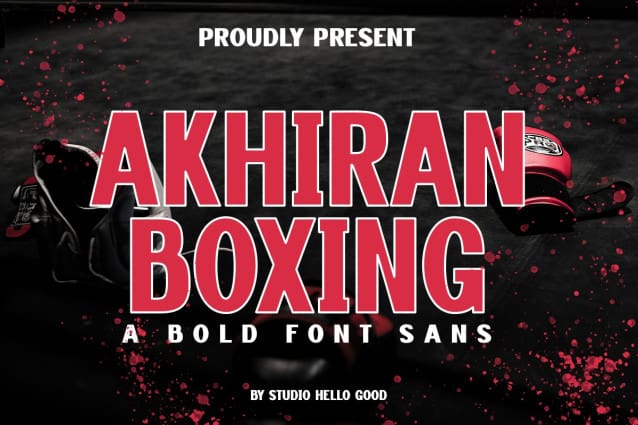
Akhiran Boxing Font
Akhiran Boxing Font is a versatile and dynamic typeface designed specifically for the world of sports. With its striking appearance and comprehensive character set, this font is the ultimate choice for any sports-related project. Whether you’re creating posters, banners, team logos, or promotional materials.